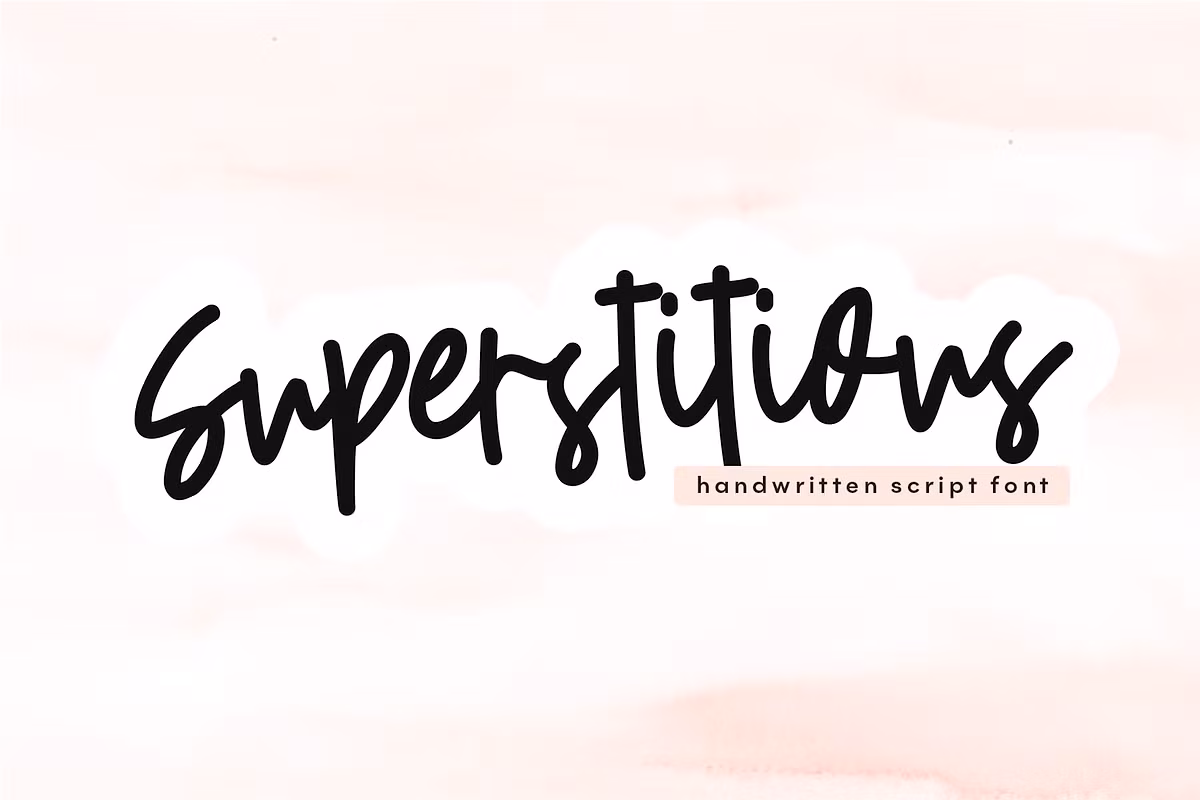
Superstitious - Bold Script Font Free Download
Superstitious – Bold Script Font Free Download
Superstitious – Bold Script Font Free Download is a daring and stylish typeface that blends bold brush strokes with expressive script energy. Perfect for branding, tattoo-inspired graphics, vintage packaging, apparel design, and Halloween-themed artwork, this font brings mystique and flair to every project.
With thick curves, dynamic movement, and a handcrafted edge, Superstitious is designed to stand out while keeping a touch of elegance. Whether you're creating eye-catching headlines, custom logos, or edgy social media posts, this font delivers personality in every letter.